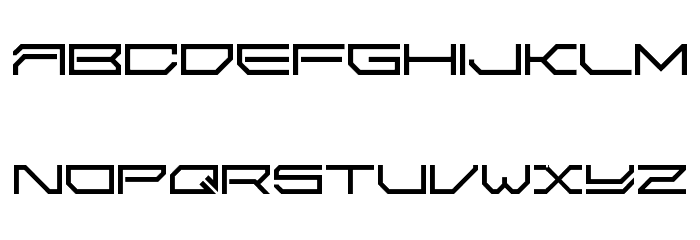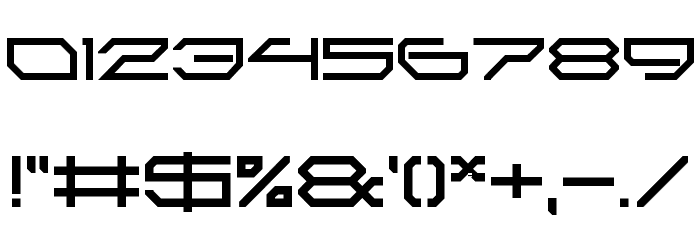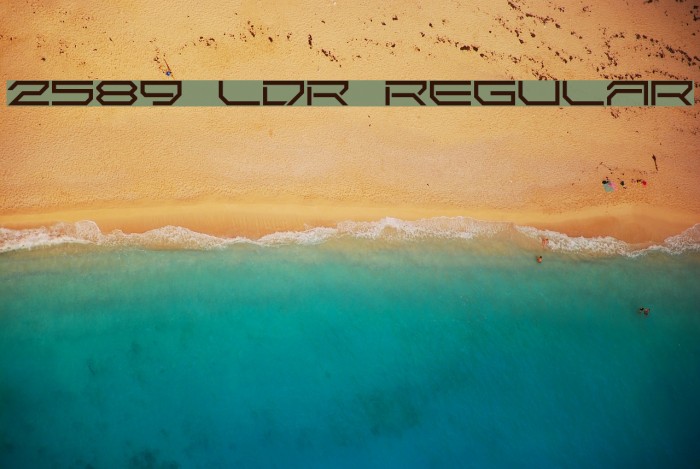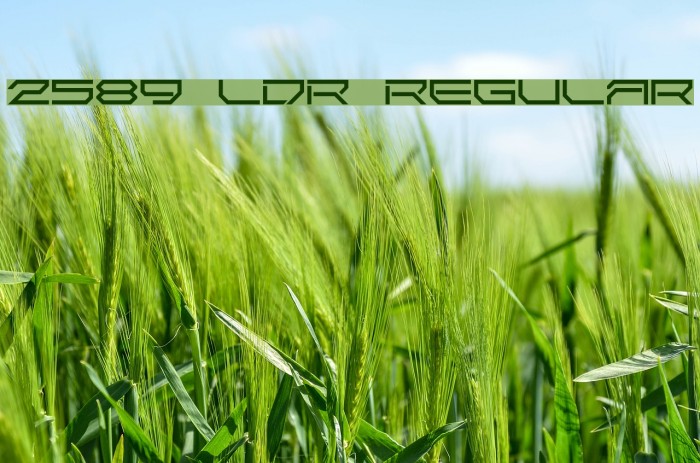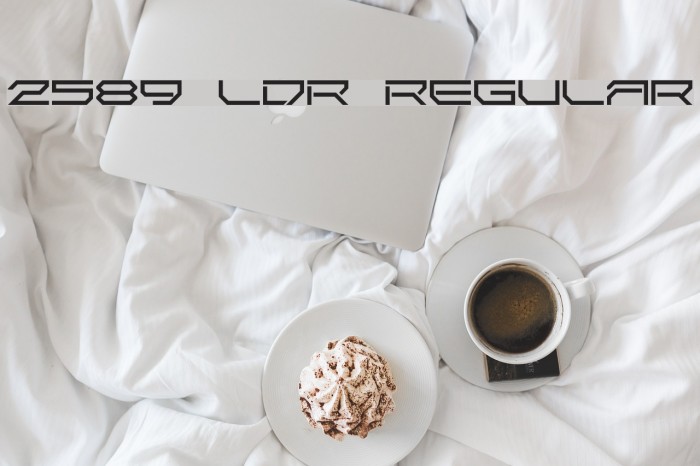
2589 LDR Regular Font
This font features a futuristic and geometric design, characterized by sharp angles and clean lines. The uppercase letters are distinct with a mechanical feel, while the lowercase letters maintain a consistent style. The numerals and special characters follow the same angular theme, making the font cohesive and visually striking. Its unique structure makes it ideal for projects that require a modern and edgy look. The font's design is both bold and minimalistic, offering a strong visual impact without unnecessary embellishments.
A futuristic, geometric font with sharp angles and a mechanical feel.
- Proposed Projects: Ideal for sci-fi themed designs, technology branding, video game titles, and modern posters.